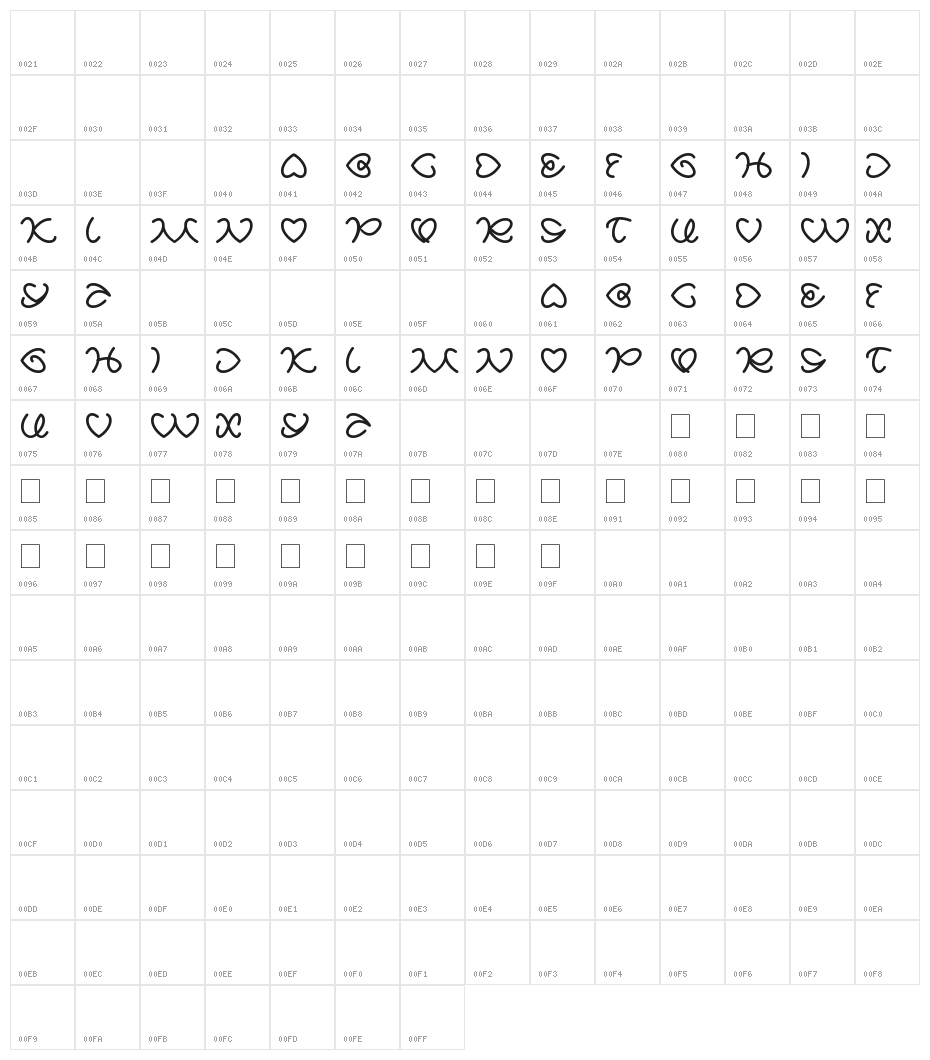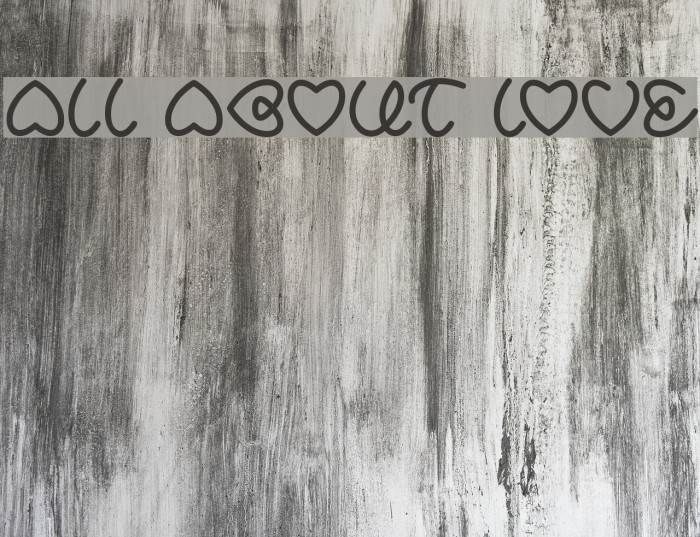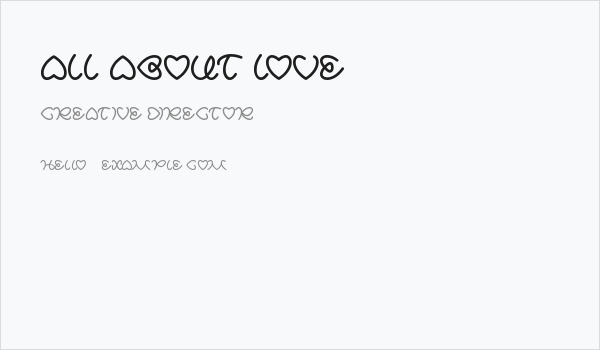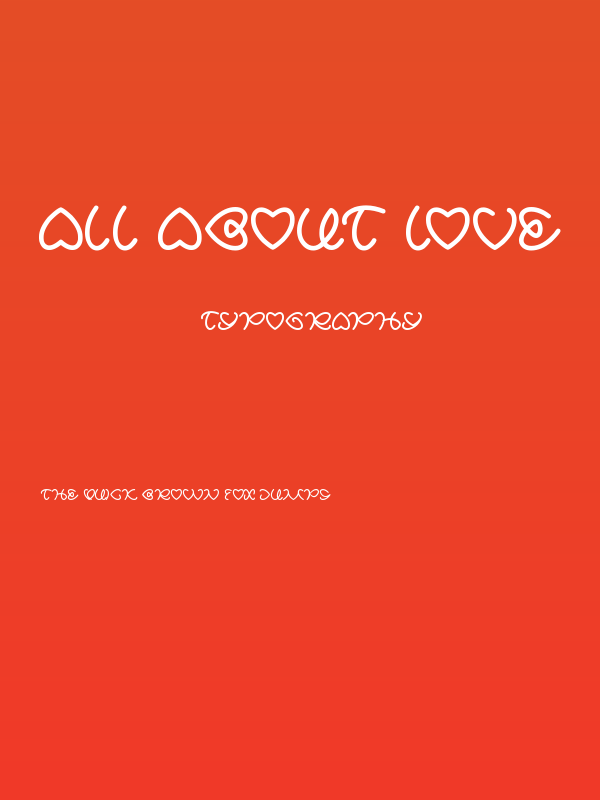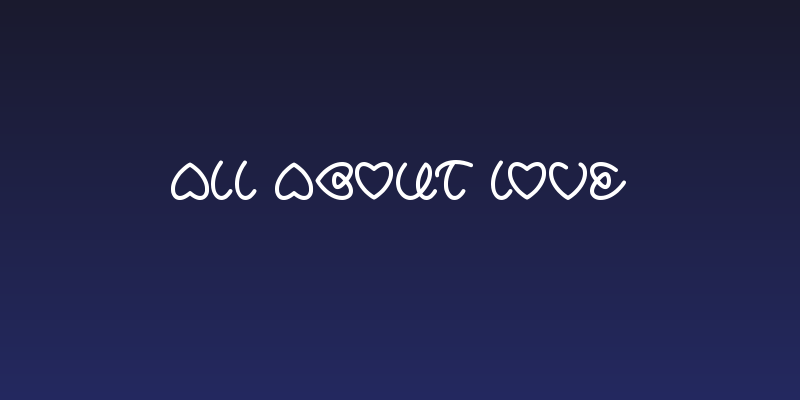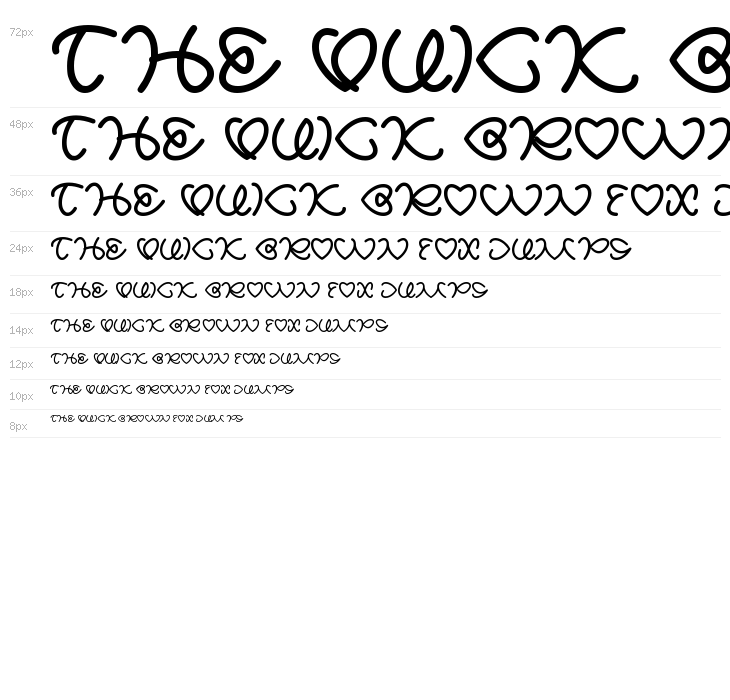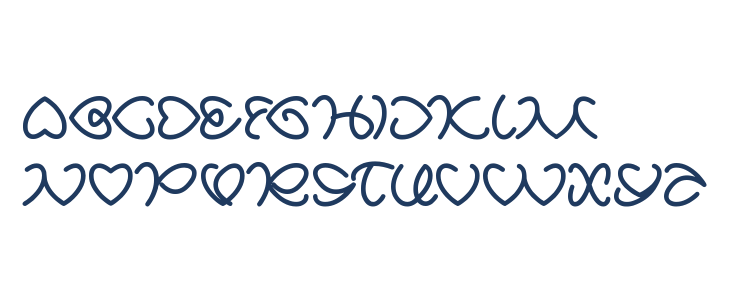
ALL ABOUT LOVE Font
ALL ABOUT LOVE Description
This playful and romantic font features heart-shaped elements integrated into each letter, creating a whimsical and affectionate appearance. The strokes are smooth and flowing, with a consistent thickness that adds to its charm. The overall design is decorative, making it ideal for projects that require a touch of love and creativity. The font's unique style is both eye-catching and memorable, perfect for conveying messages of affection and joy.
Overall StyleRomantic, Playful
Use CaseHeadlines, Logos, Invitations
Proposed ProjectsIdeal for wedding invitations, Valentine's Day cards, love-themed posters, and romantic branding.